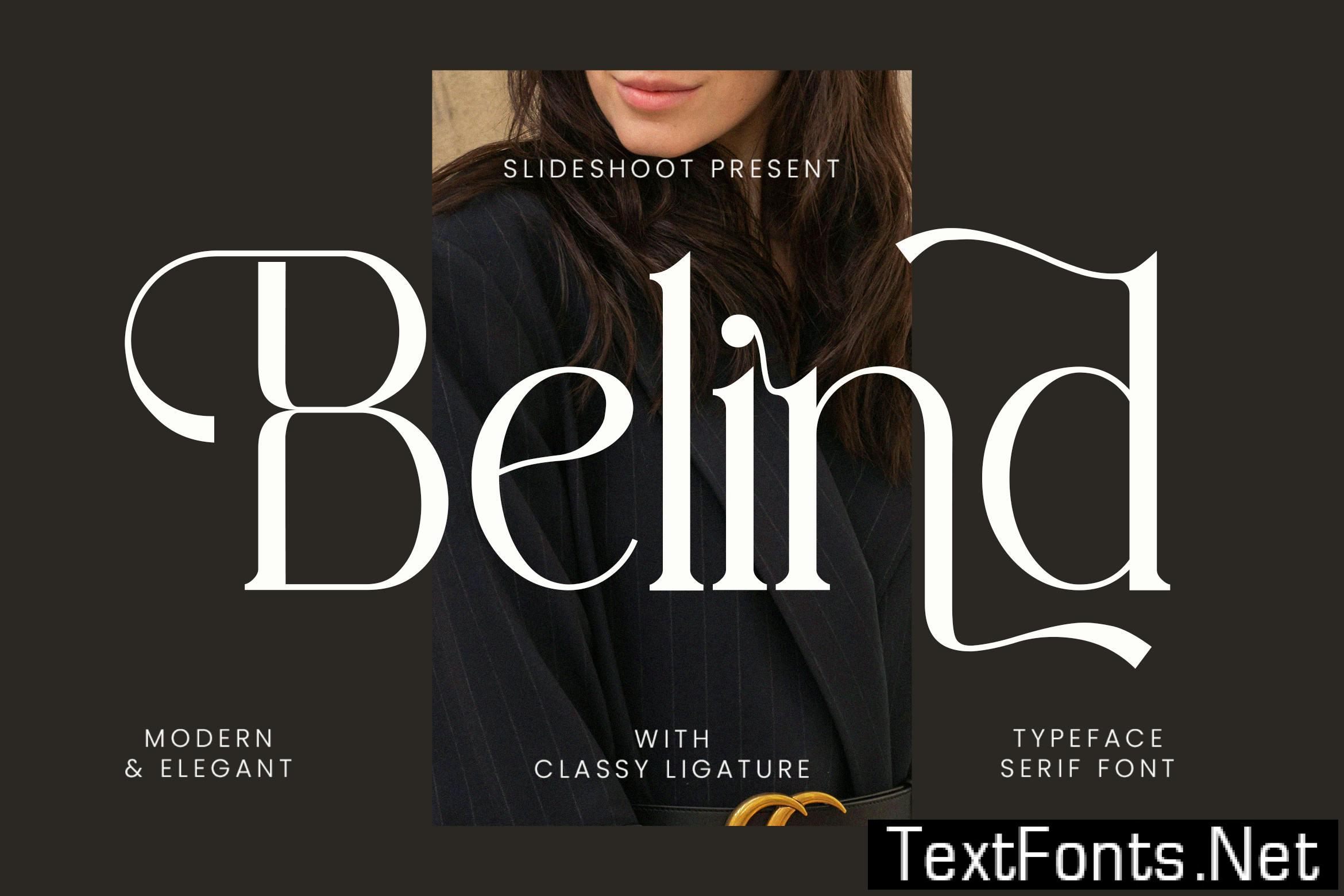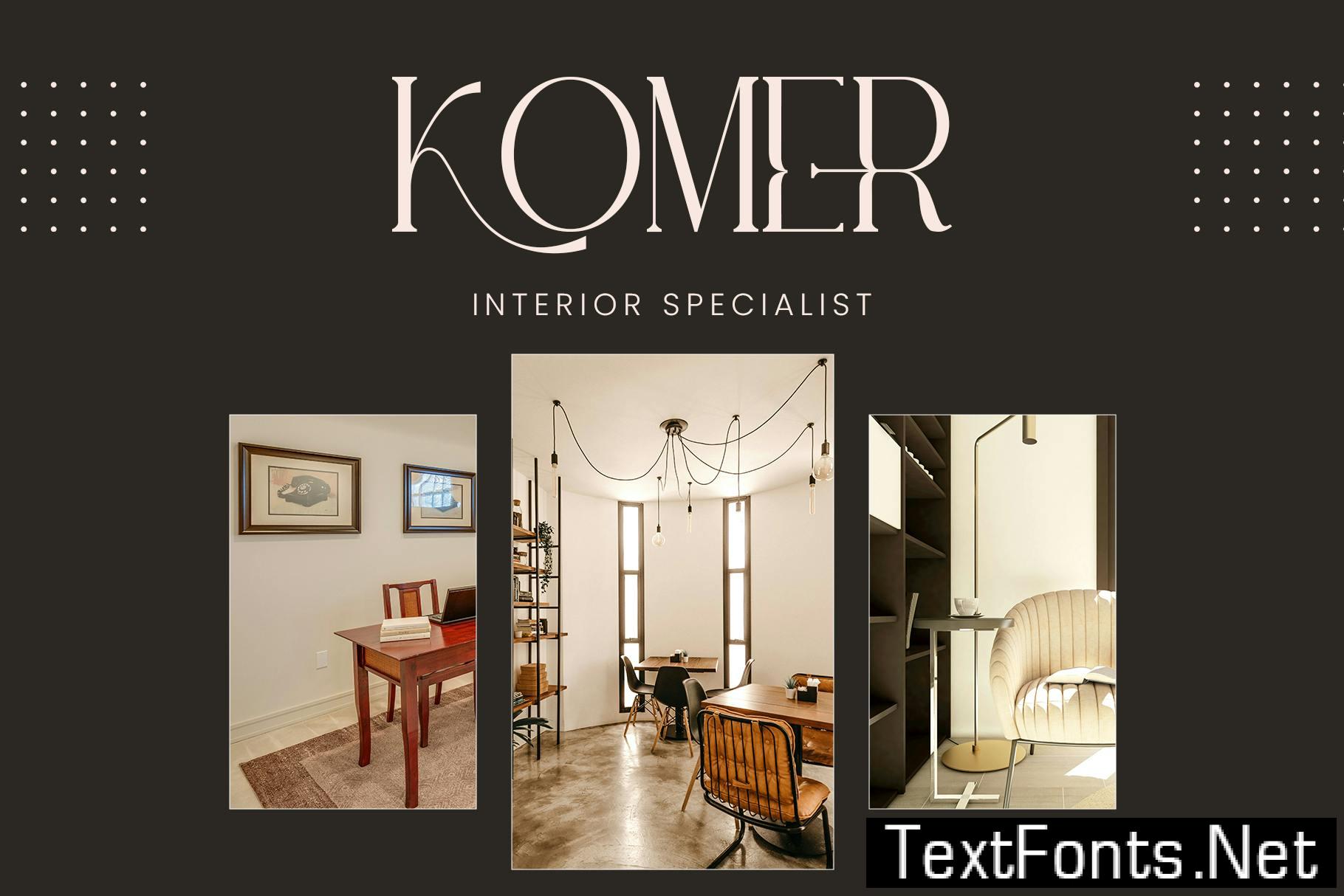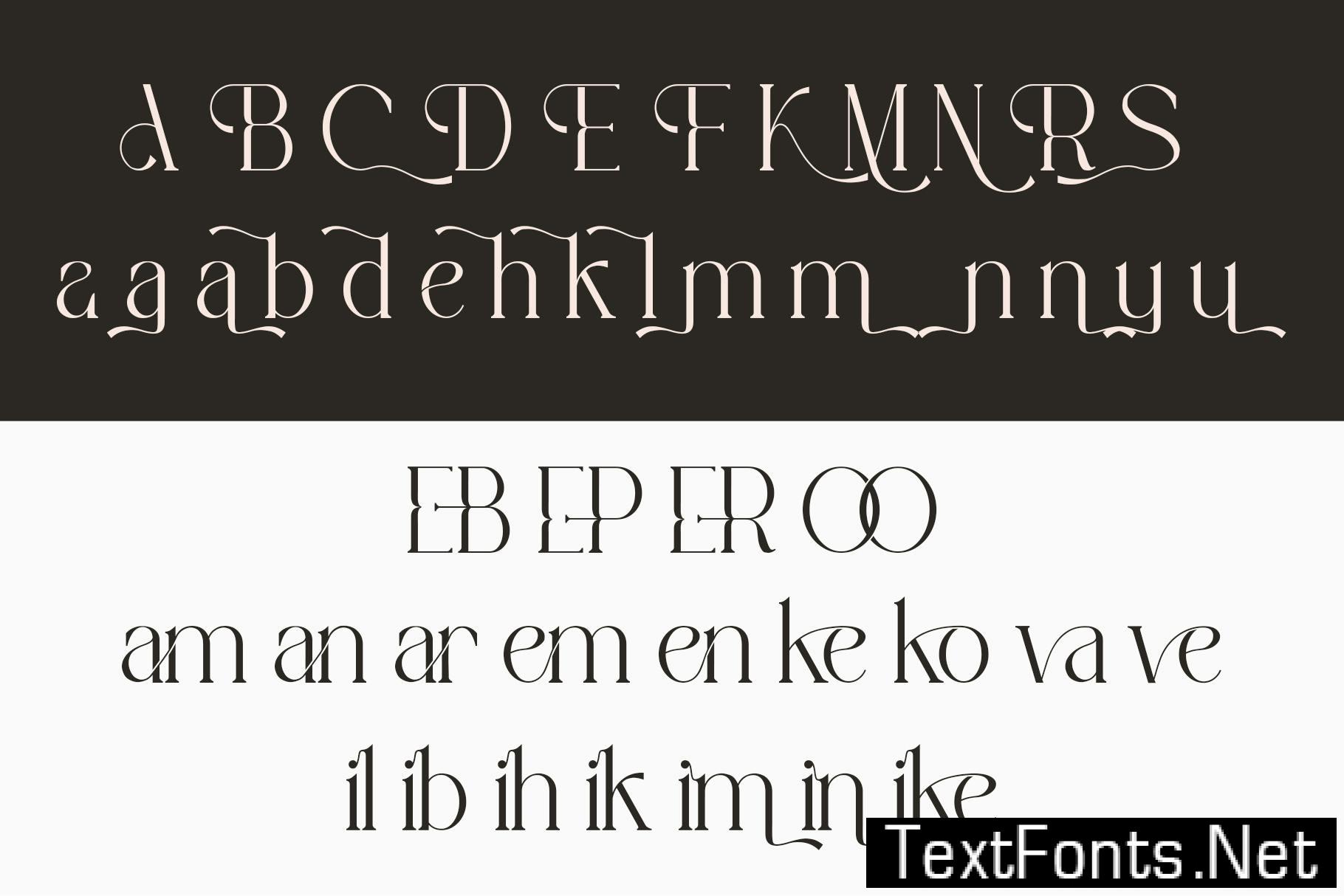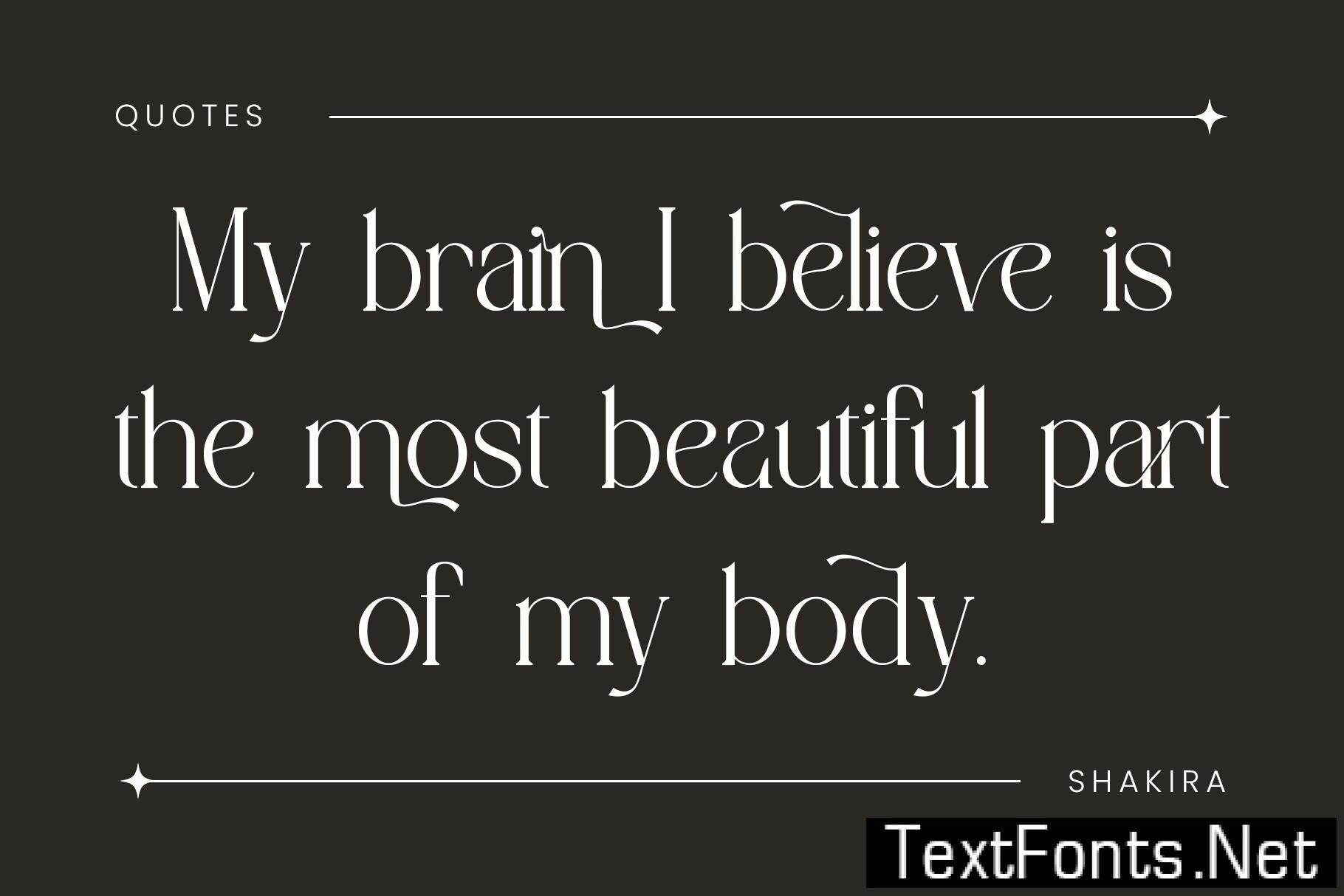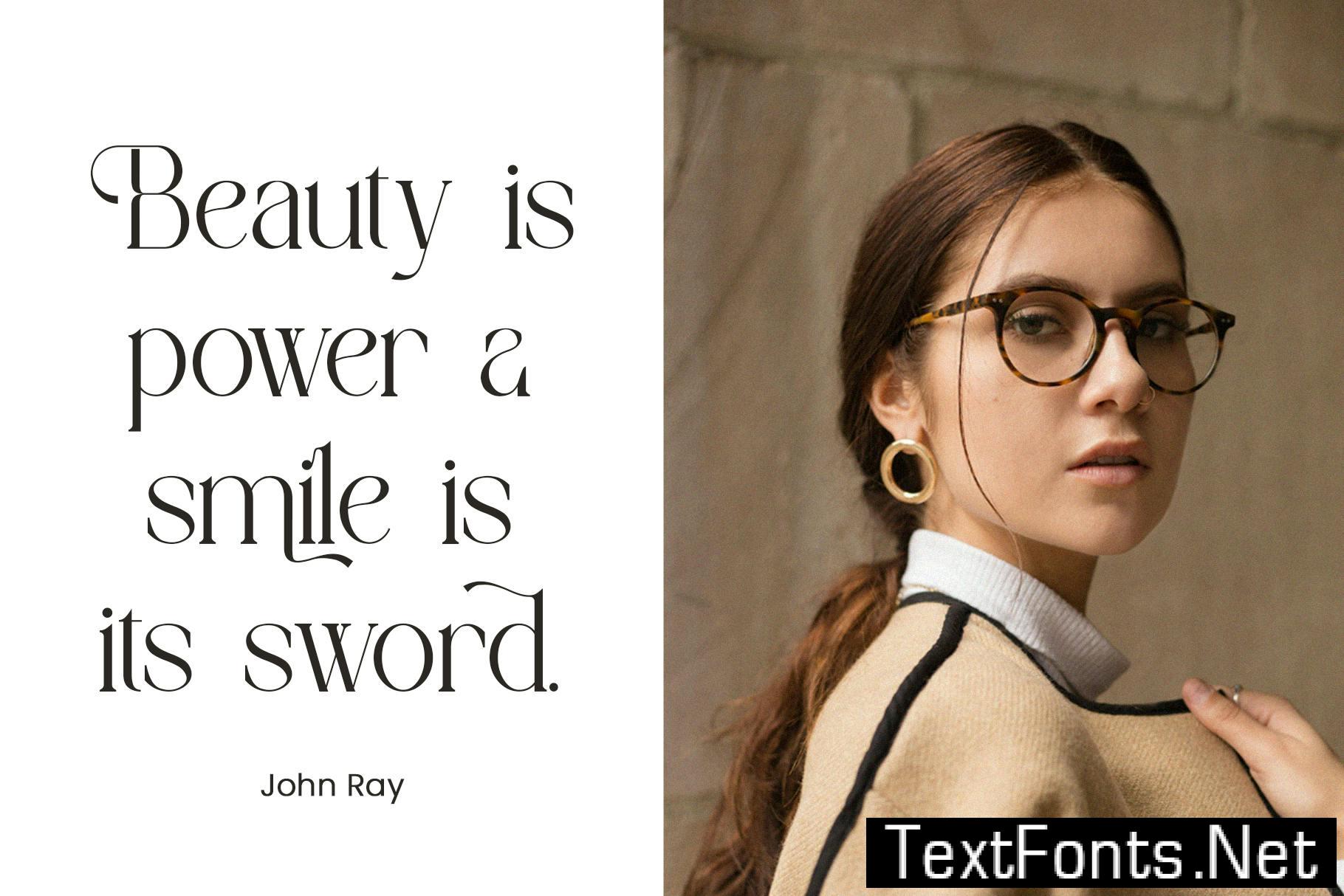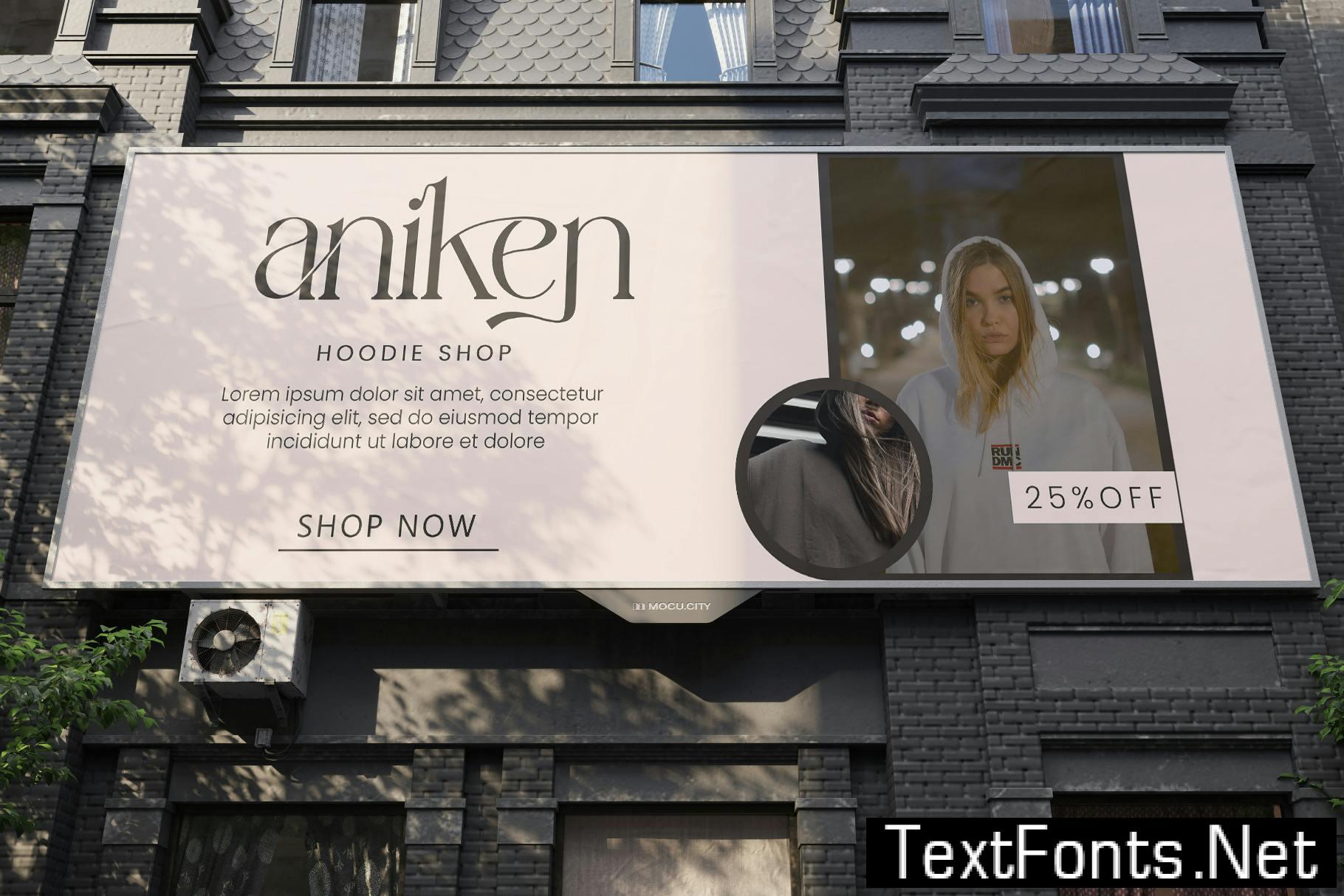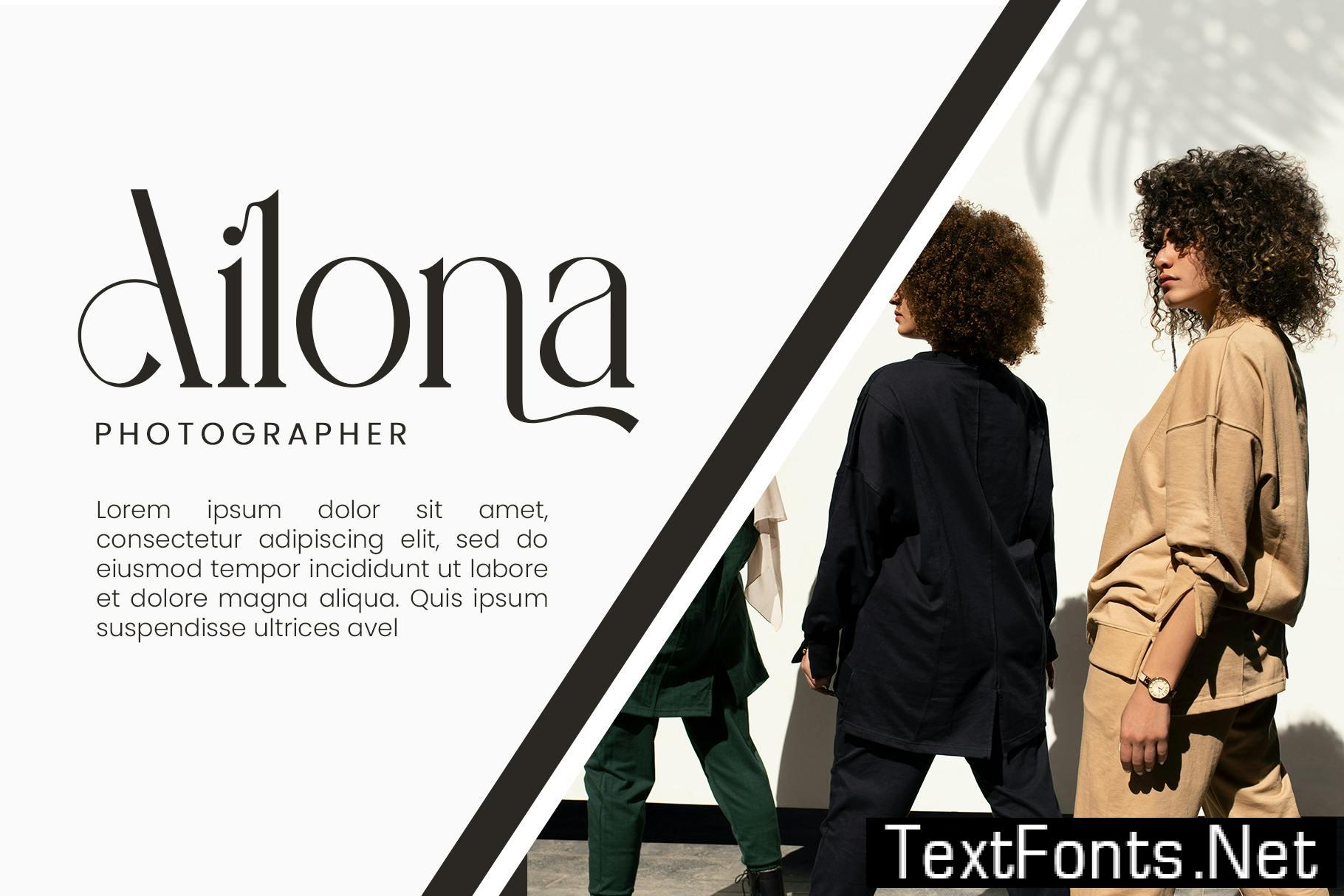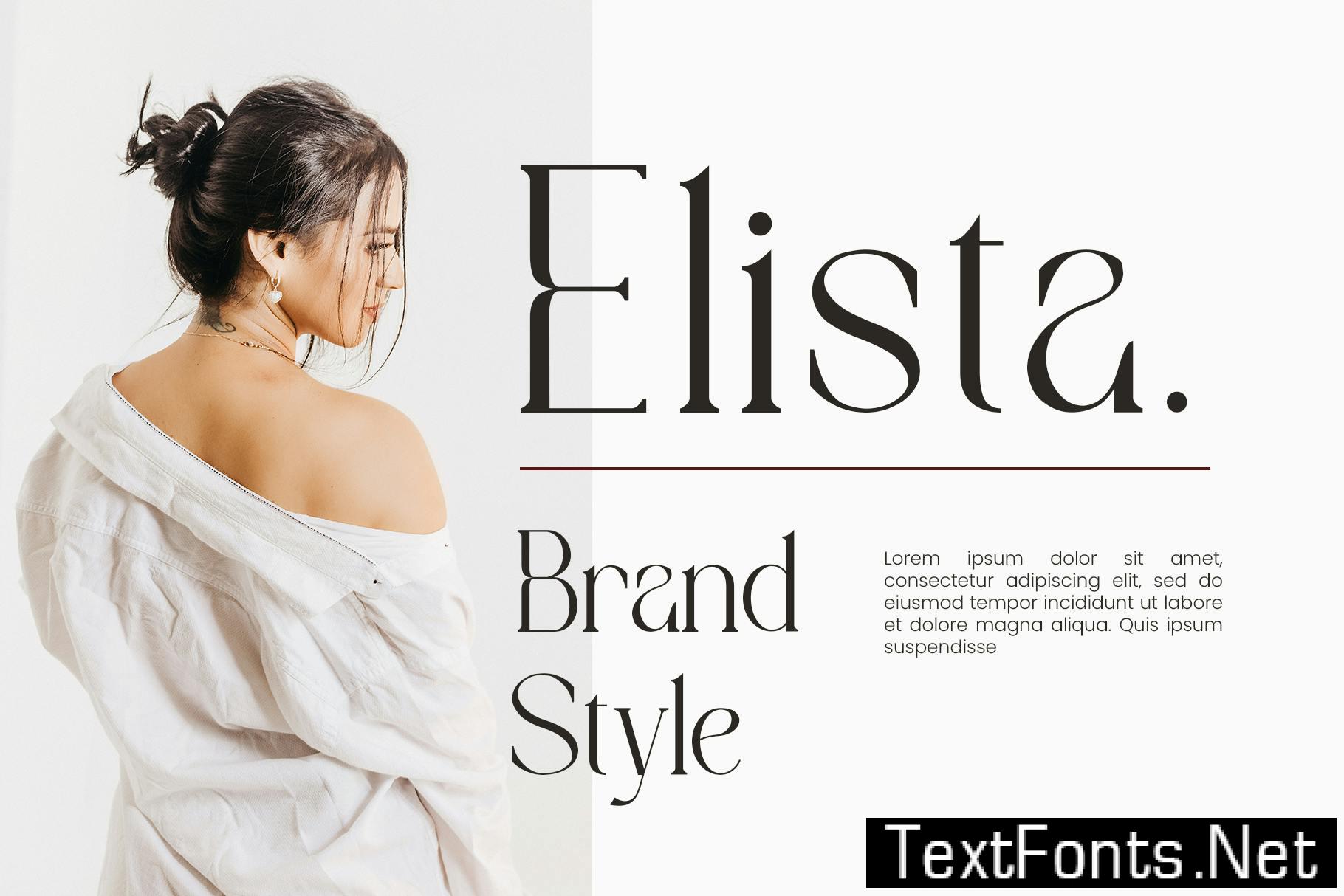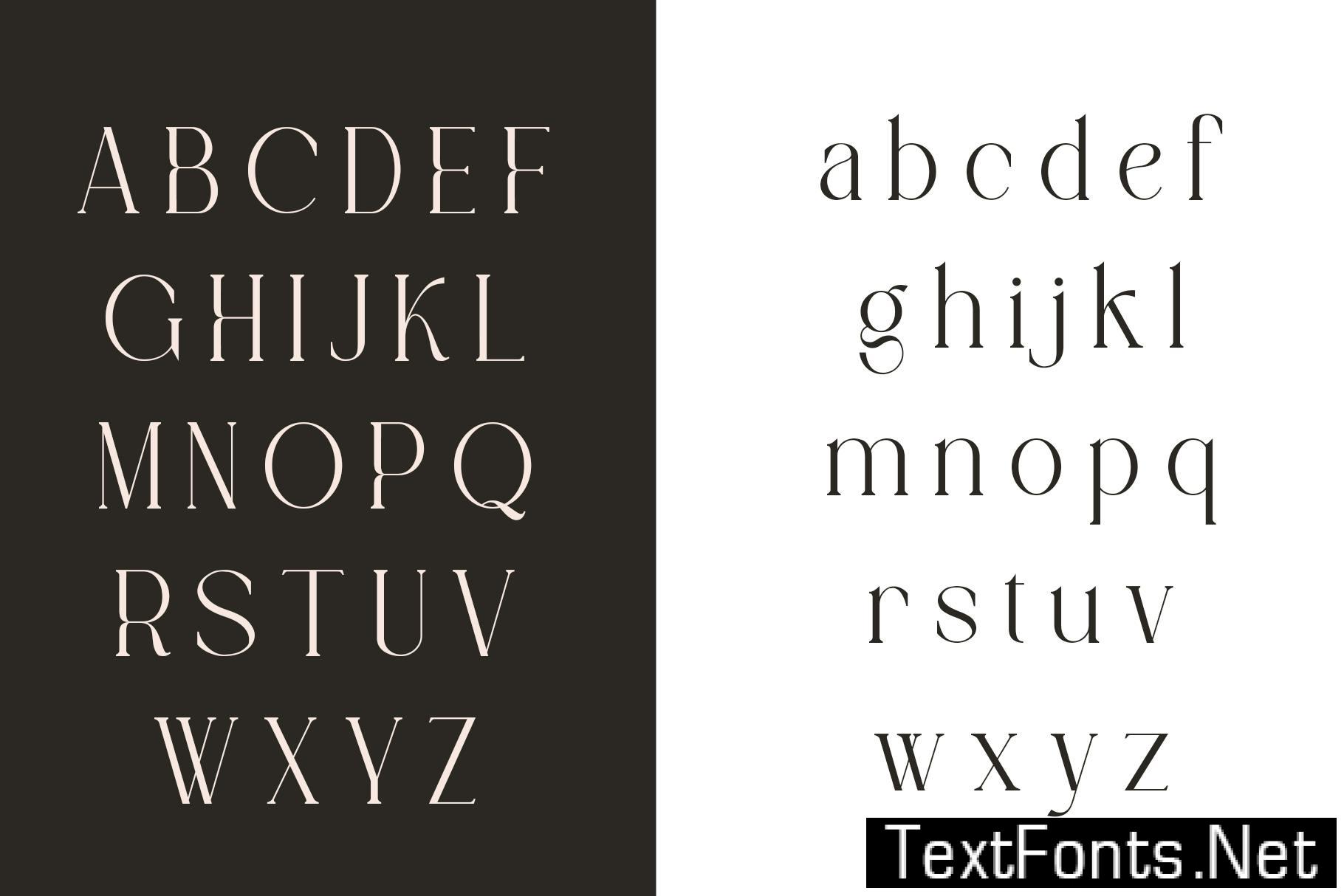
Belind Serif is a balanced, smooth, elegant and stylish serif font. He has a beautiful character. It fits perfectly with invitation card designs, company logos, movie titles, movie names, business cards, book titles, brand names and various other designs. Belind Serif is a subtle serif font that exudes sophistication and elegance. Its stylish alternations and ligatures make this font the perfect partner for any project.
– Ligature
– Uppercase and lowercase
– Numbering and Punctuation